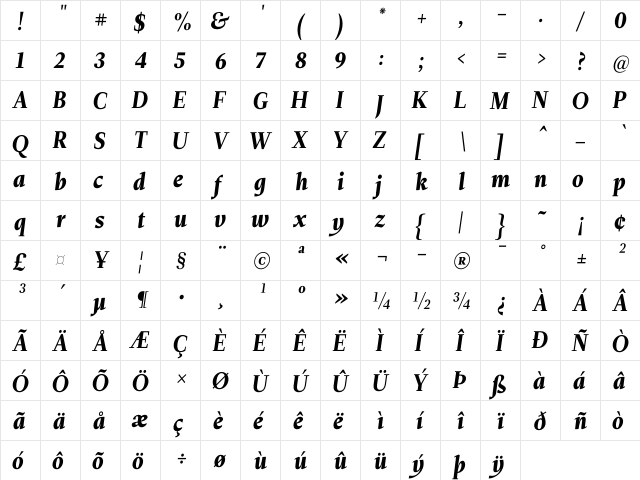
Leitura Italic 4
| Foundry | Dino dos Santos _DSType |
| Designer | Dino dos Santos |
Design Context for Leitura Typeface
Leitura is a composed and adaptable typeface that performs quietly and consistently across a wide range of design contexts. The dynamic lean of this cut emphasises speed and emphasis in any layout.
Pro Tip: Use Leitura for emphasis, pull quotes, and subheadings where its slanted energy can add rhythm to the layout.